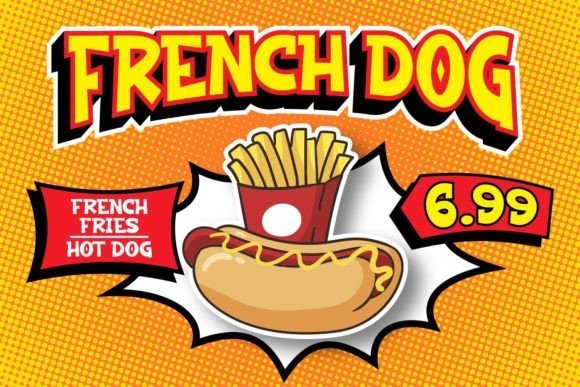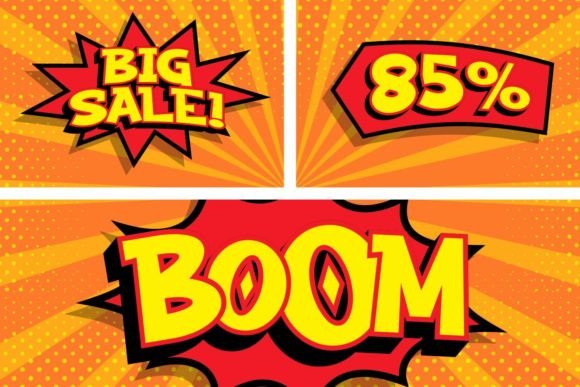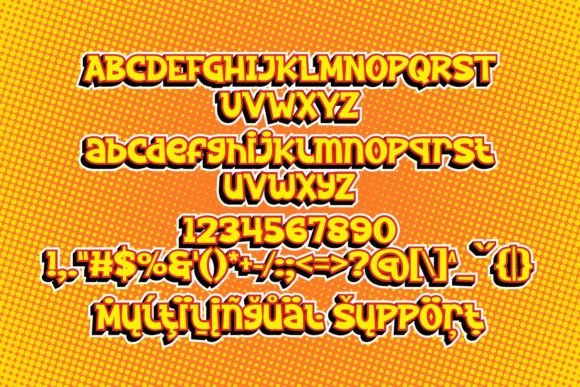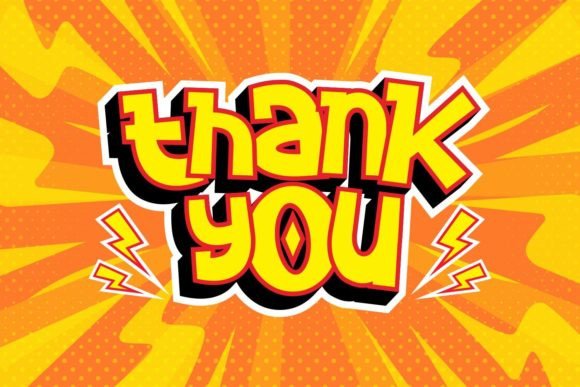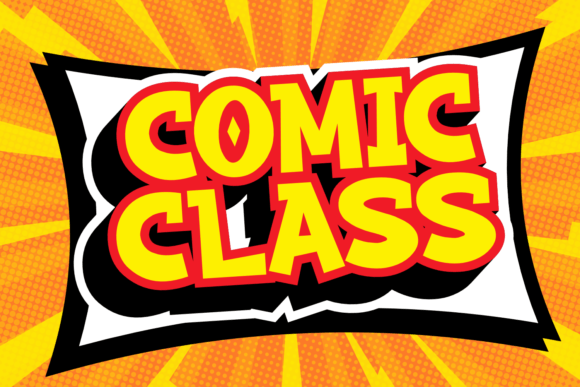
Introducing Comic Class Font: Elevate Your Designs with a Striking Display Font
Are you tired of using the same old fonts in your designs? Do you want to create bold and eye-catching typography that sets your project apart? Look no further than Comic Class Font, a unique display font that’s perfect for designers and crafters looking to add a touch of personality to their work.
What is Comic Class Font?
Comic Class Font is a one-of-a-kind display font that’s designed to make a statement. With its striking look and bold personality, this font is perfect for creating eye-catching typography that grabs attention. Whether you’re working on a poster, banner, advertising material, product packaging, or book cover, Comic Class Font has the potential to elevate any project and take it to the next level.
Key Features of Comic Class Font
- Unique Display Font: Comic Class Font is a distinctive display font that’s designed to stand out. Its unique look and feel make it perfect for creating bold and eye-catching typography.
- Multipurpose: Comic Class Font is perfect for a wide range of design projects, including posters, banners, advertising materials, product packaging, book covers, and more.
Why Choose Comic Class Font?
So why choose Comic Class Font over other display fonts on the market? Here are just a few reasons why designers and crafters love this font:
- High-Quality Design: This font is designed with high-quality in mind. The bold and striking look is perfect for creating eye-catching typography that stands out.
- Versatile: Comic Class Font is incredibly versatile, making it perfect for a wide range of design projects. Whether you’re working on a commercial project or a personal craft, this font is sure to impress.
Tips and Tricks for Using Comic Class Font
Here are a few tips and tricks for getting the most out of Comic Class Font:
- Experiment with Different Sizes: Don’t be afraid to experiment with different font sizes to create visual interest.
- Play with Color: Try out different colors to add depth and personality to your design.
- Mix and Match: Mix and match Comic Class Font with other fonts to create a unique and eye-catching look.
Comic Class Font is a unique and versatile display font that’s perfect for designers and crafters looking to add a touch of personality to their work. With its striking look, PUA encoding, and multipurpose design, this font has the potential to elevate any project and take it to the next level. Whether you’re working on a commercial project or a personal craft, Comic Class Font is sure to impress.